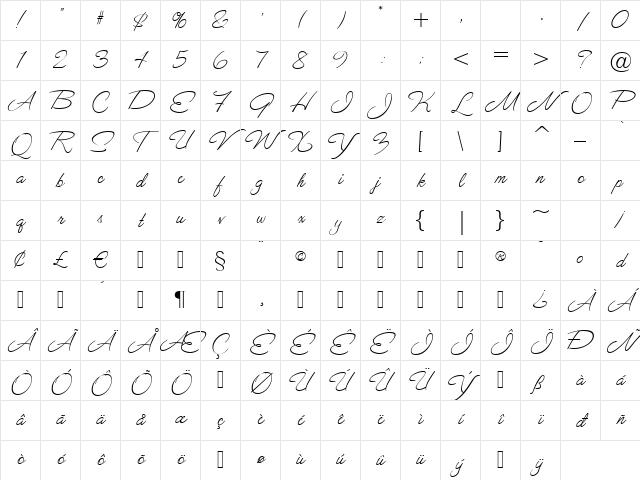
ValentinaJF Regular
Design Context for ValentinaJF
ValentinaJF is a composed and adaptable typeface that performs quietly and consistently across a wide range of design contexts.
Pro Tip: Use ValentinaJF in both headline and body roles to test its range before committing to a single application.